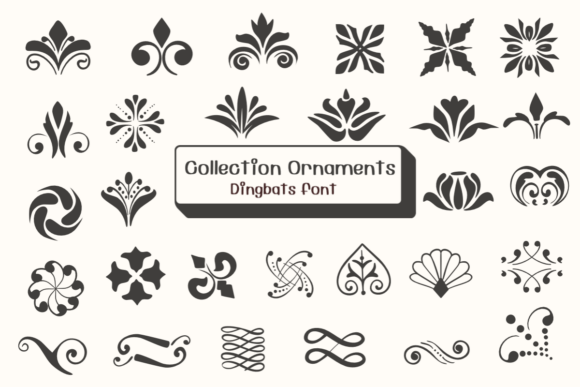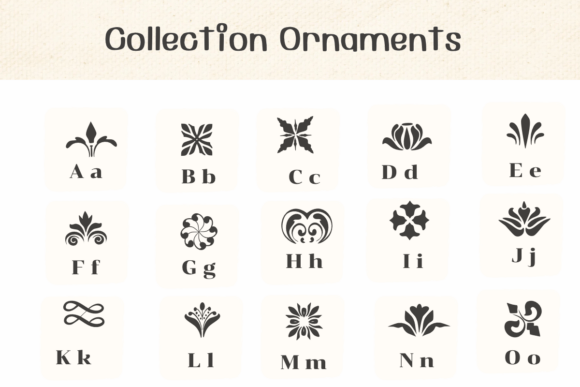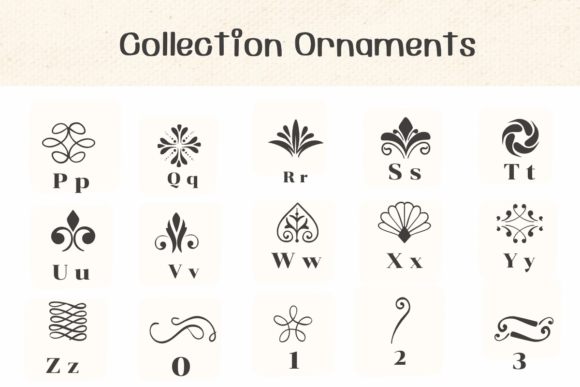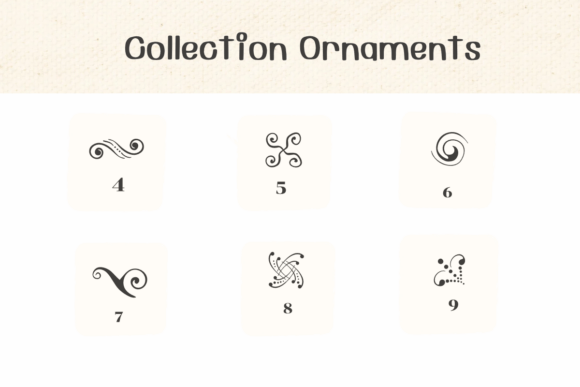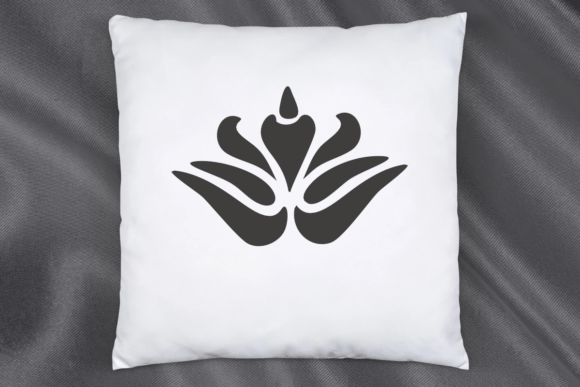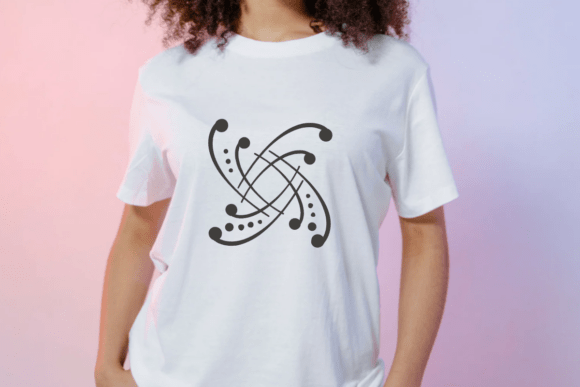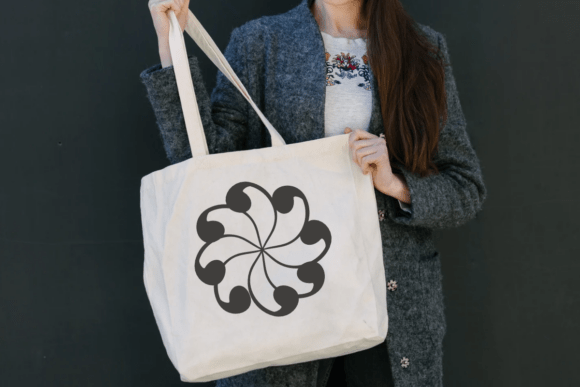
Unlock the Magic of Hand-Drawn Elegance
Have you ever stared at a blank sheet of paper, your mind a jumble of ideas and inspiration, waiting to be set free? For many designers, this is the moment when creativity strikes, and the possibilities seem endless. It’s in these moments that the right font can be the difference between a good design and a truly great one.
That’s where the Collection Ornaments Font comes in – a stunning set of ornamental glyphs that will elevate your designs to new heights. With its elegant swirls, flourishes, and classical accents, this font is the perfect addition to any project, from invitations and branding to packaging and logos. Whether you’re a seasoned designer or just starting out, the Collection Ornaments Font is an invaluable tool that will help you add a touch of vintage sophistication to your work.
Collection Ornaments Font Key Features
- Size: 20,000+ glyphs, including ornaments, symbols, and characters
- Unique Characteristics: Includes over 200 ornaments, 100+ symbols, and 100+ characters, making it a versatile font for various designs
- Font Weight: Regular, Bold, Italic, and Bold Italic weights available for added flexibility
Designer Review: Collection Ornaments Font
Overall, I think the Collection Ornaments Font has some great qualities, but it’s not without its limitations. ✨ Here are a few things that work well:
- The font has a unique and festive feel to it, making it perfect for holiday-themed designs.
- The ornaments are intricately designed and add a touch of elegance to any design.
- The font is highly customizable, allowing users to adjust the size, color, and style of the ornaments to fit their needs.
However, there are also some limitations to consider: ⚠️
- The font may be too ornate for some designs, making it difficult to read or understand.
- The font is not suitable for body text, as it’s primarily designed for decorative use.
- The font may not be compatible with all operating systems or devices, which could cause display issues.
Overall, I think the Collection Ornaments Font is a great choice for designers who need a unique and festive font for their holiday designs. However, it’s essential to consider the limitations and use it in a way that complements the rest of the design.
Tips for Getting the Most Out of the Collection Ornaments Font
Use the font in combination with other decorative elements, such as shapes and icons, to create unique and eye-catching designs.
Experiment with different font sizes, colors, and styles to create a cohesive and visually appealing look.
Use the font to add a touch of whimsy and personality to your designs, making them stand out from the crowd.
The Collection Ornaments Font is perfect for:
Invitations and event decor
Wedding and holiday designs
Children’s party decorations and invitations
Any design that requires a touch of